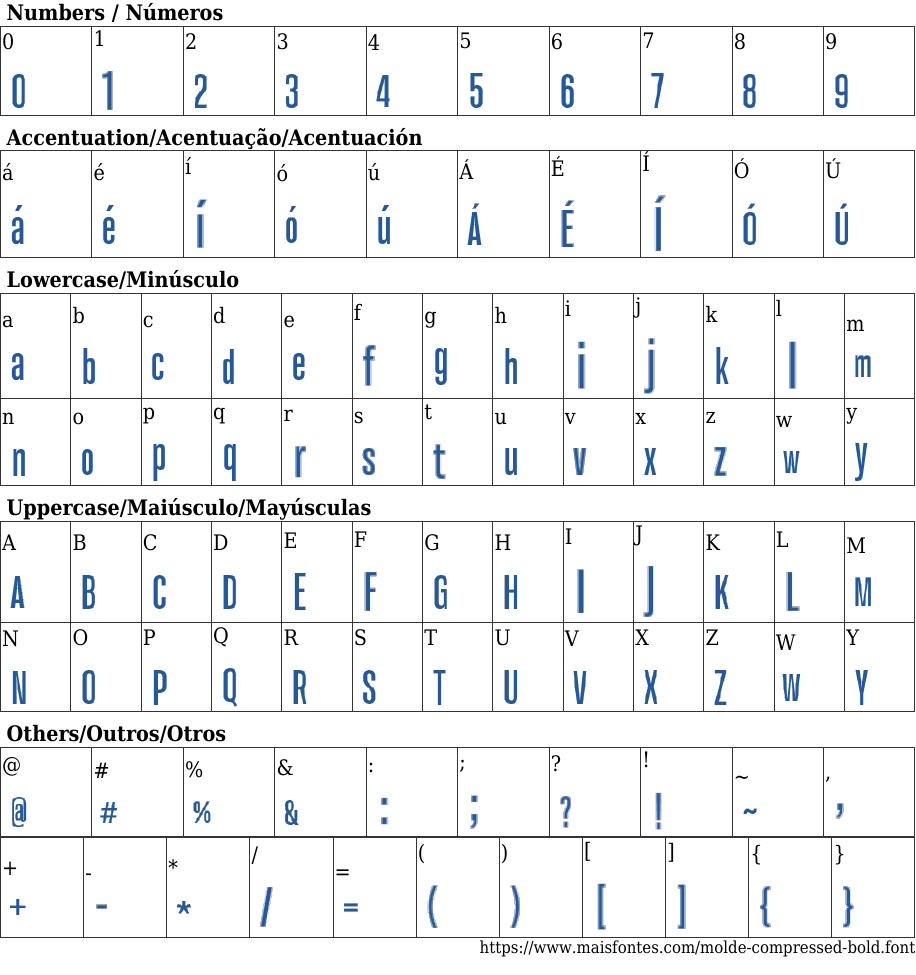
The family is composed of 3 parts: With its bold and edgy style, subtle elegance, versatility, and functionality, this font is sure to become a staple in your font collection. The font is available in all formats (molde woff2, molde woff, molde ttf, molde eot) and applicable to the website,.
With its bold and edgy style, subtle elegance, versatility, and functionality, this font is sure to become a staple in your font collection. With its bold and edgy style, subtle elegance, versatility, and functionality, this font is sure to become a staple in your font collection. Free download of the molde regular font. Molde font is free for personal use.
Molde Font Free - Discover the free molde condensed bold font at free font download ! The family is composed of 3 parts: With its bold and edgy style, subtle elegance, versatility, and functionality, this font is sure to become a staple in your font collection. Free download of the molde regular font. Molde font is free for personal use.
Molde Font Free - Each one of them has 9 weights. Discover the free molde condensed bold font at free font download ! Molde font is free for personal use. Is molde free to download on 1000fonts.com? The family is composed of 3 parts:
Molde Font Free - The regular version, the italic version and the reverse version. Link to purchase full version and commercial license : Each one of them has 9 weights. Discover the free molde condensed bold font at free font download ! The family is composed of 3 parts:
Molde Font Free - The family is composed of 3 parts: With its bold and edgy style, subtle elegance, versatility, and functionality, this font is sure to become a staple in your font collection. A great choice to highlight the elements of your project. Molde font is free for personal use. Free download of the molde regular font.
Molde Font Free - Please don't waste your time looking for a free. Link to purchase full version and commercial license : A great choice to highlight the elements of your project. Discover the free molde condensed bold font at free font download ! Each one of them has 9 weights.
Molde Font Free - With its bold and edgy style, subtle elegance, versatility, and functionality, this font is sure to become a staple in your font collection. Link to purchase full version and commercial license : Installable on pc, mac, linux, ios, and android platforms. A great choice to highlight the elements of your project. The regular version, the italic version and the reverse.
Molde Font Free - Please don't waste your time looking for a free. Installable on pc, mac, linux, ios, and android platforms. A great choice to highlight the elements of your project. With its bold and edgy style, subtle elegance, versatility, and functionality, this font is sure to become a staple in your font collection. The regular version, the italic version and the reverse.
Molde Font Free - The regular version, the italic version and the reverse version. The family is composed of 3 parts: Each one of them has 9 weights. Free download of the molde regular font. Please don't waste your time looking for a free.